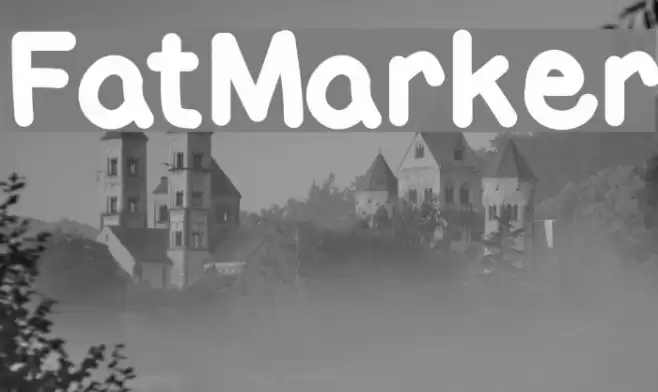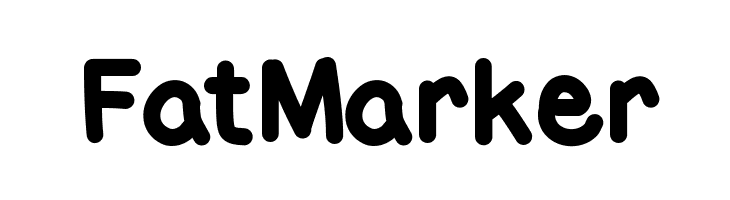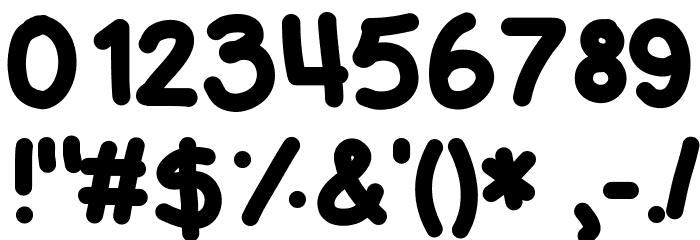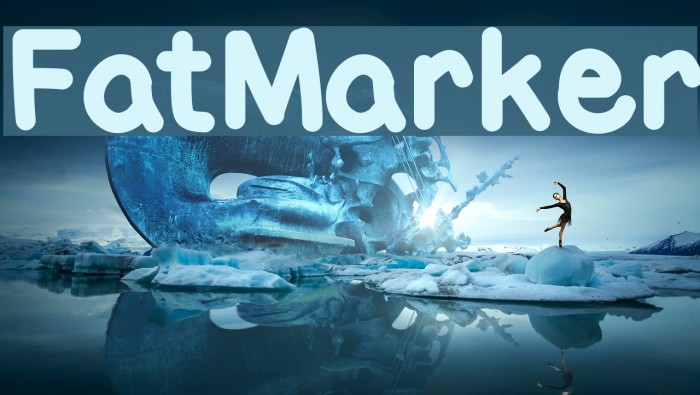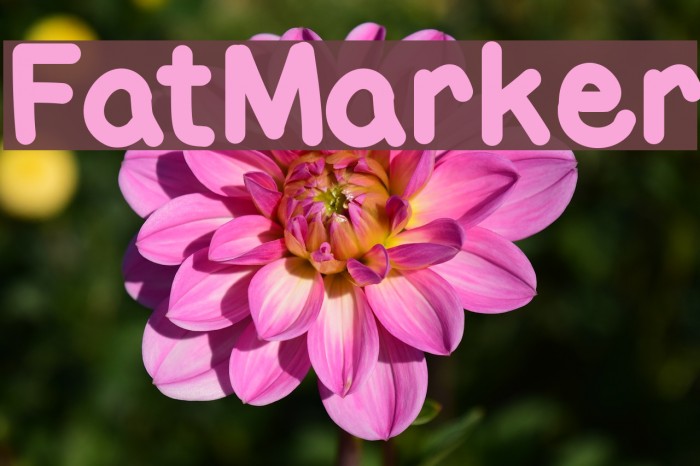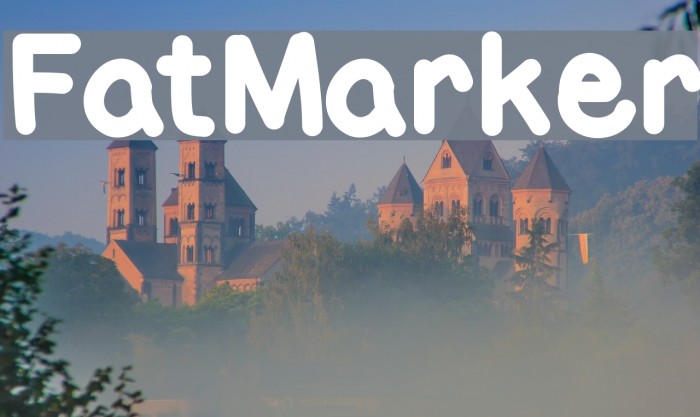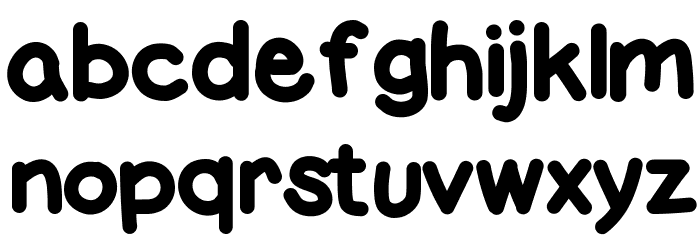
FatMarker
This playful and bold font features rounded, thick strokes that give it a friendly and approachable appearance. The characters are uniformly wide, with a consistent weight that adds to its boldness. The rounded edges and smooth curves create a sense of warmth and informality, making it ideal for casual and fun designs. The font maintains a consistent height across uppercase and lowercase letters, ensuring readability while adding a touch of whimsy. Its distinct style makes it suitable for projects that require a lively and engaging visual impact.
A playful, bold font with rounded, thick strokes and a friendly appearance.
- Proposed Projects: Ideal for children's books, playful branding, casual invitations, and fun social media graphics.
- Overall Style: Playful